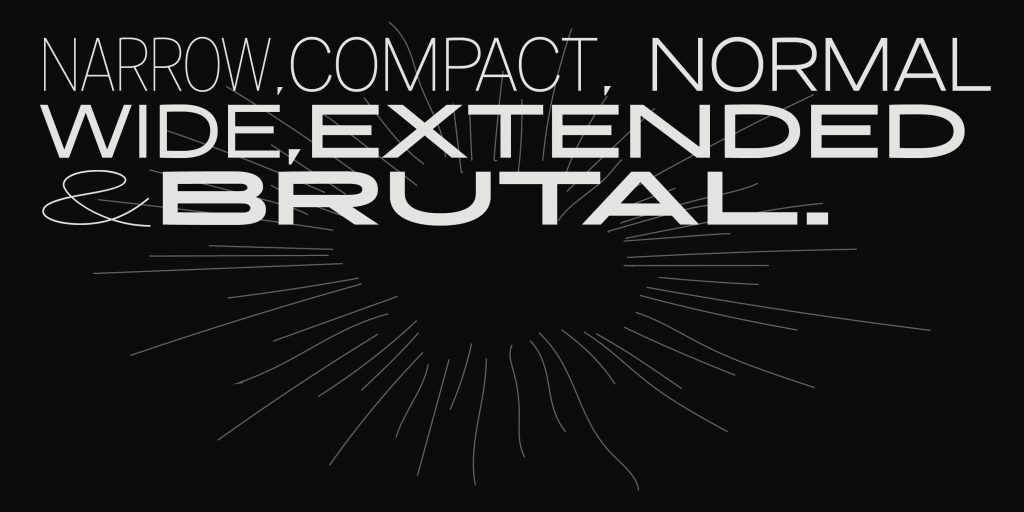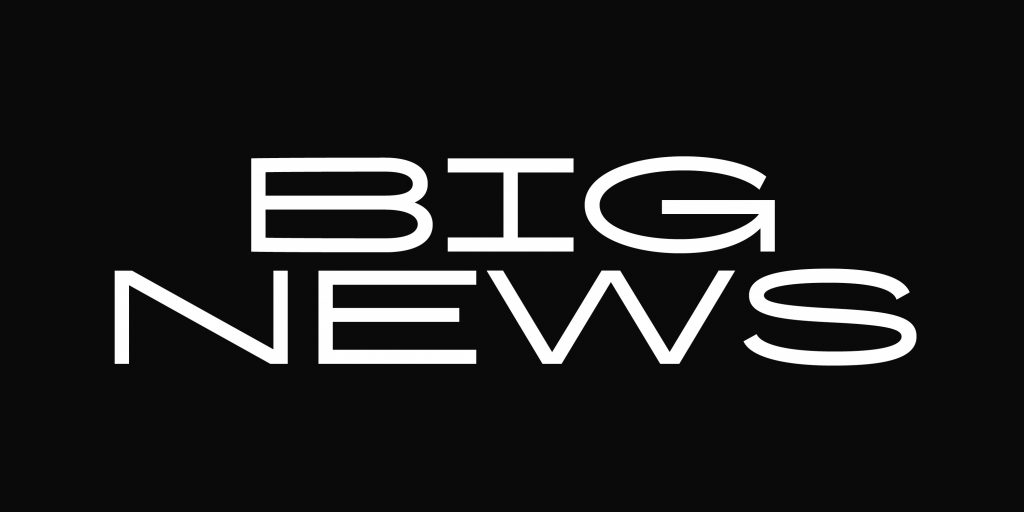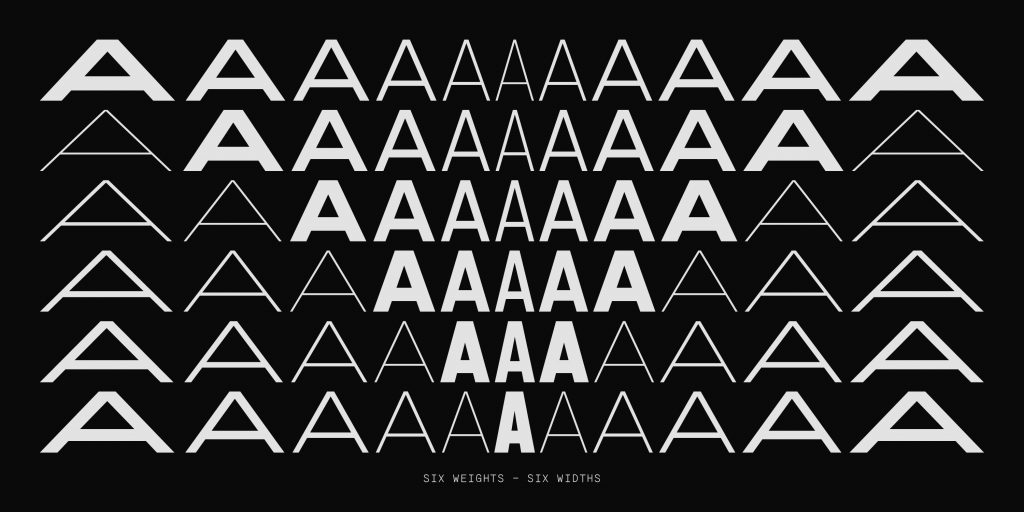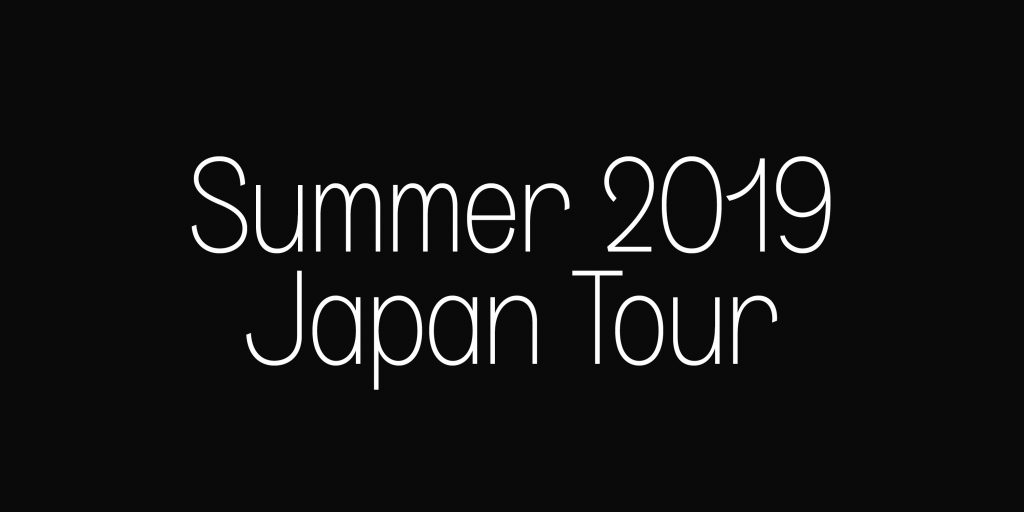
Name: Zoom Pro
Designer: Florian Paizs
Foundry: The Designers Foundry
Release Date: October 2019
Back Story: It’s pretty much universally acknowledged that type design is a profession beholden to perfectionists. One such perfectionist is Florian Paizs of New York-based The Designers Foundry. Paizs has been adding widths to his type family Zoom for more than three years now, and this Fall marks the release of his latest, expanded version of the typeface, which includes 36 styles in six weights and six widths (an upgrade from the 12 styles launched in 2017). “There was no set plan in the beginning,” says Paizs, “just a vision that evolved very slowly over time with tons of experimenting and discarded ideas.”
But this, it seems, is just the beginning: when Paizs delivered the final files of Zoom Pro to TDF a few a months ago, he subtly mentioned in an email that eventually Zoom will have more 150 styles: “Just give me a few more years,” he wrote.
Why’s it called Zoom Pro? According to the designer, “Zoom” was simply a random working title that gestures to the transition between differing widths and weights, which felt “like zooming in on a camera.” Reading between the lines though, we see an additional meaning in the name. To “zoom” means to rise rapidly or proceed quickly like a rocket: just like this typeface, which continually grows, balloons, and builds with its new weights and widths.
What are its distinguishing characteristics? Zoom offers a range of stylistics alternatives which change the appearance of the typeface dramatically with one click—it can be chunky, sleek, nimble—and designers can choose between flat tops or Futura-like points for the spikes of letters like A, N, M, V, W, which dramatically shift the tone and energy of the font. Zoom’s Y is particularly delightful: it looks a little like a squat umbrella that’s had its handle broken off.
The friendly nature of Zoom Pro comes from its exaggerated curvy shapes and the round punctuation marks. But it can also be brutal thanks to its sharp edges and rough strokes that aren’t optically corrected.
What should I use it for? It has a strong, energetic personality that feels especially potent in large sizes, so using Zoom Pro on posters, billboards, or branding projects probably makes the most sense. It’s a fast font for fast times, so we can also see it on bicycle frames, car hoods, tram doors, and other whirring mechanical objects.
What typefaces should I pair it with? Well, probably itself, given that there are 36 eclectic styles… But if you’re looking to mix and match outside of the family, you could pair the thinner strokes with a classic Didone, or potentially even a typewriter font. Recently, TDF has mixed it with its other new release, Fragen. Generally, you’ll probably want to create a sense of contrast when you’re using Zoom Pro—so pairing it with a geometrical or constructed font, or even a script, could look good, too.